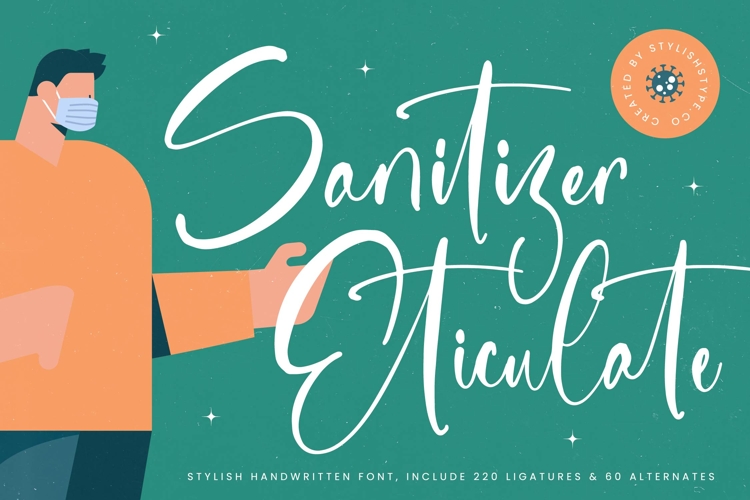
Sanitizer Eticulate - Stylish Handwritten Font
Discover the exquisite charm of truly authentic script typography with Font Sanitizer Eticulate - Stylish Handwritten Font Script. This captivating typeface embodies a graceful flow, featuring elegant, high-contrast strokes that evoke a genuine, handcrafted aesthetic. Its fluid connections and stylish letterforms make it an instant standout, perfect for projects demanding both a touch and professional polish. Experience the blend of effortless beauty and refined craftsmanship this unique font offers.
Unlock unparalleled creative potential with the rich feature set of Font Sanitizer Eticulate - Stylish Handwritten Font Script. Beyond its stunning visual appeal, this font includes an impressive collection of 220 ligatures and 60 alternates, providing designers with immense flexibility to craft truly bespoke compositions. These extensive stylistic variations ensure every design feels unique and meticulously customized, elevating your projects with an unmistakable touch of originality and sophistication.